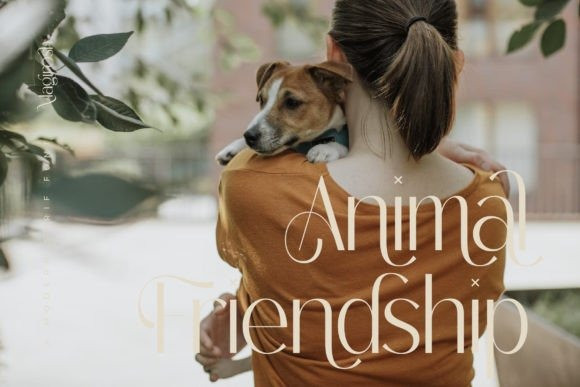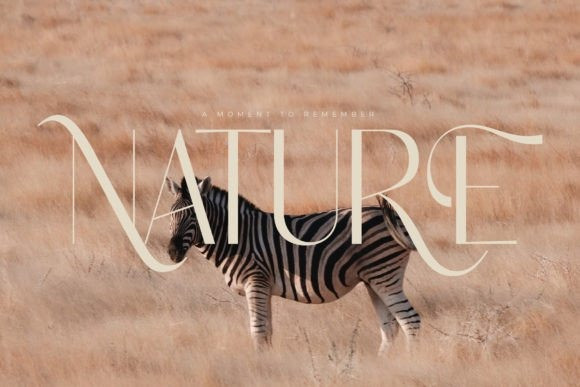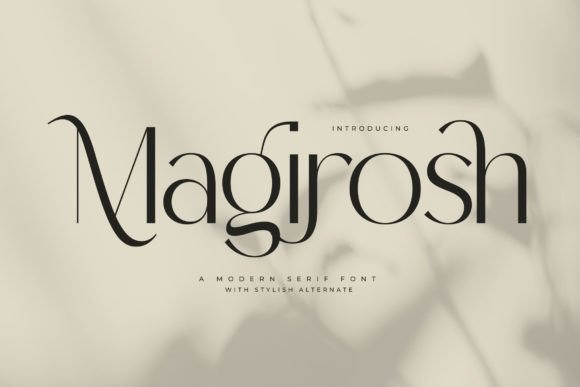
Magirosh Font
Magirosh Font is a modern and stylish serif font that has its own unique appearance. This typeface is perfect for an elegant and luxurious logo, fashion brands, magazines, apparel, lettering, quotes, and so much more.